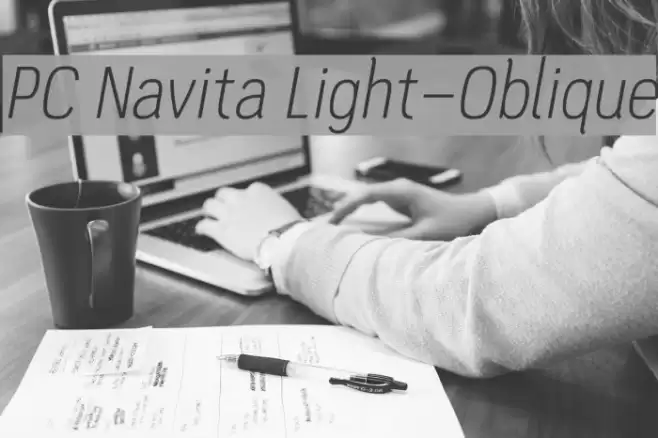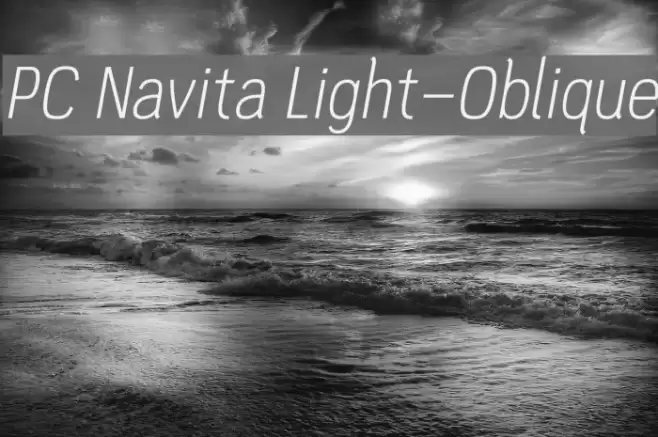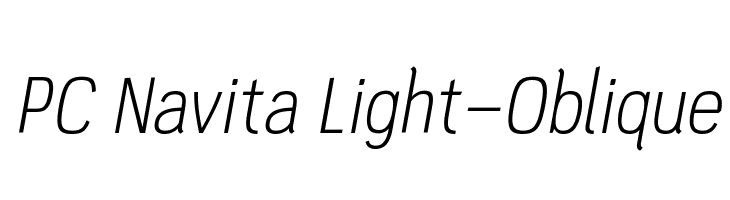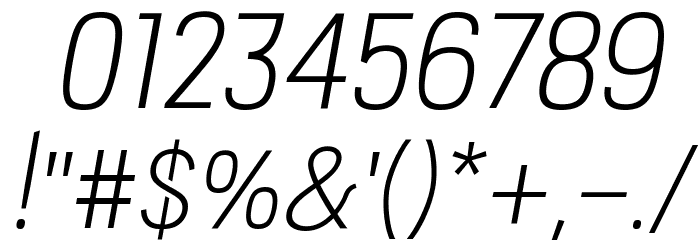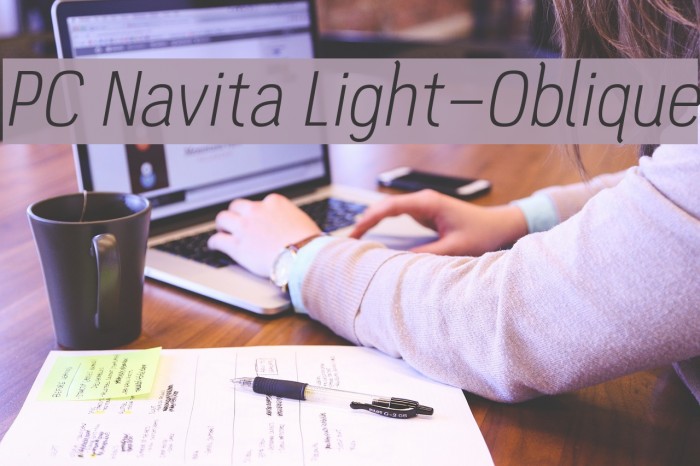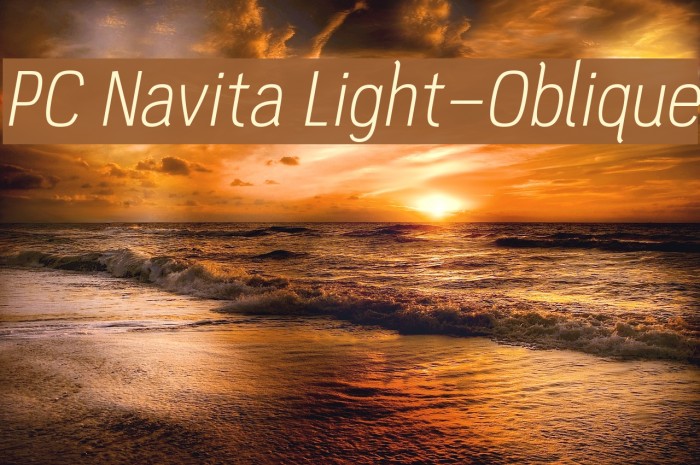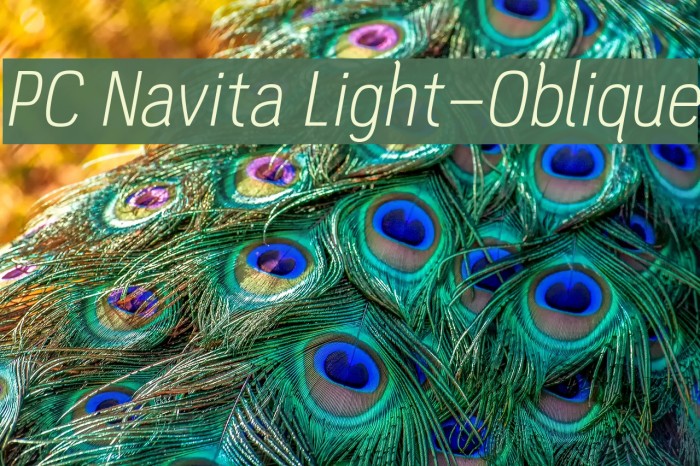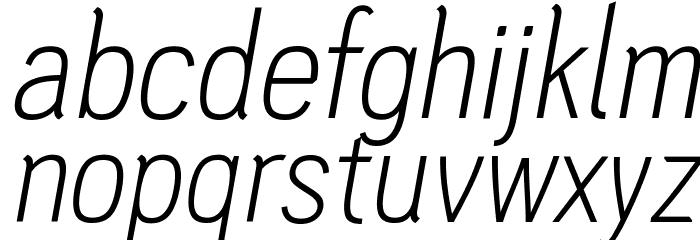
PC Navita Light-Oblique Font
PC Navita Light-Oblique Description
This font features a sleek and modern design with a light and oblique style. The characters are slightly slanted, giving a dynamic and forward-moving appearance. The strokes are thin and consistent, contributing to a clean and elegant look. The uppercase and lowercase letters maintain a uniform height, enhancing readability. The numerals are clear and distinct, while the special characters are well-integrated, maintaining the overall aesthetic. The font's simplicity and subtle sophistication make it versatile for various design applications.
A sleek, light, and oblique font with a modern and elegant style from Uncategorized fonts.
- Proposed Projects: Ideal for branding, editorial design, websites, and modern corporate materials.